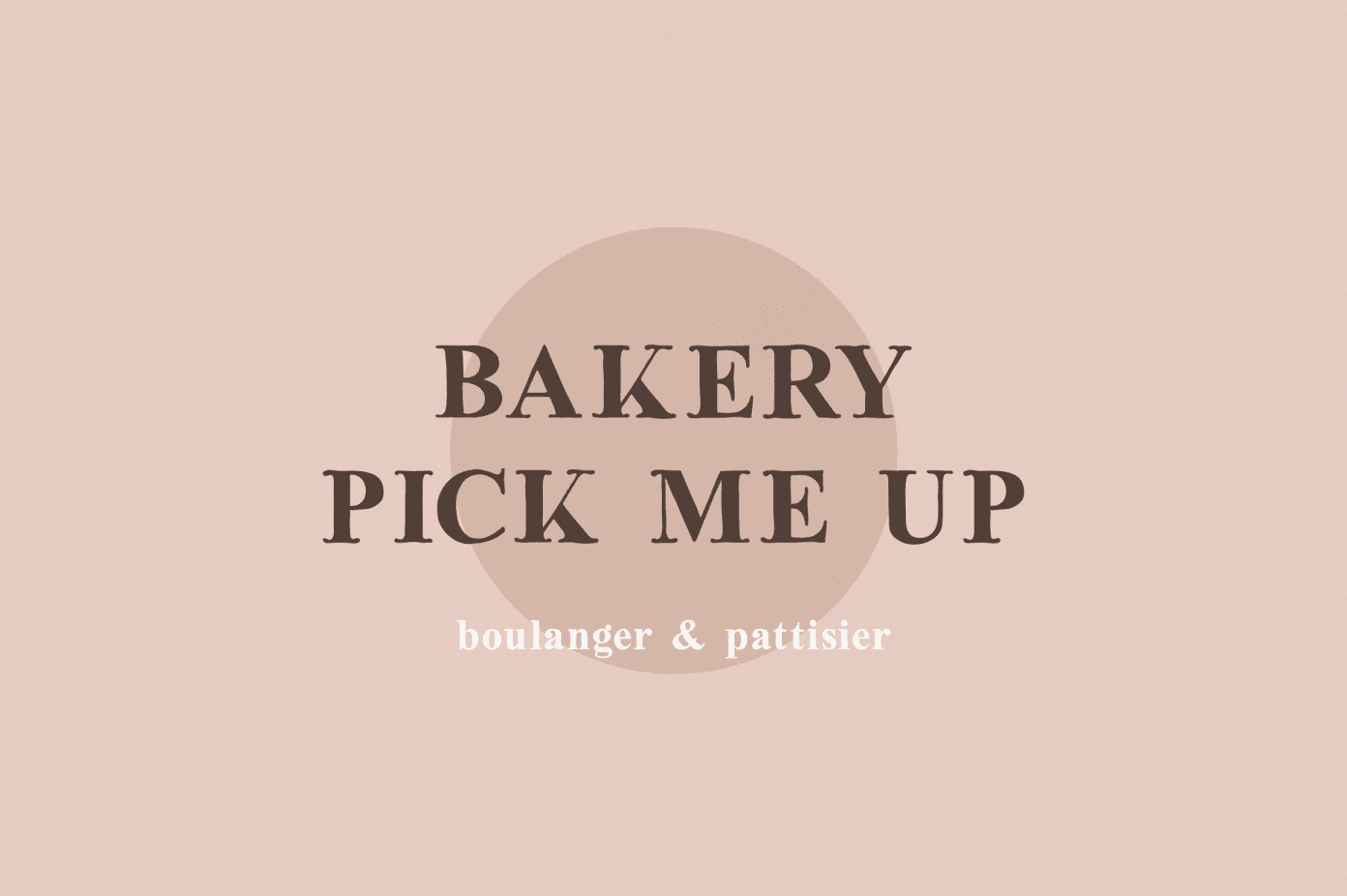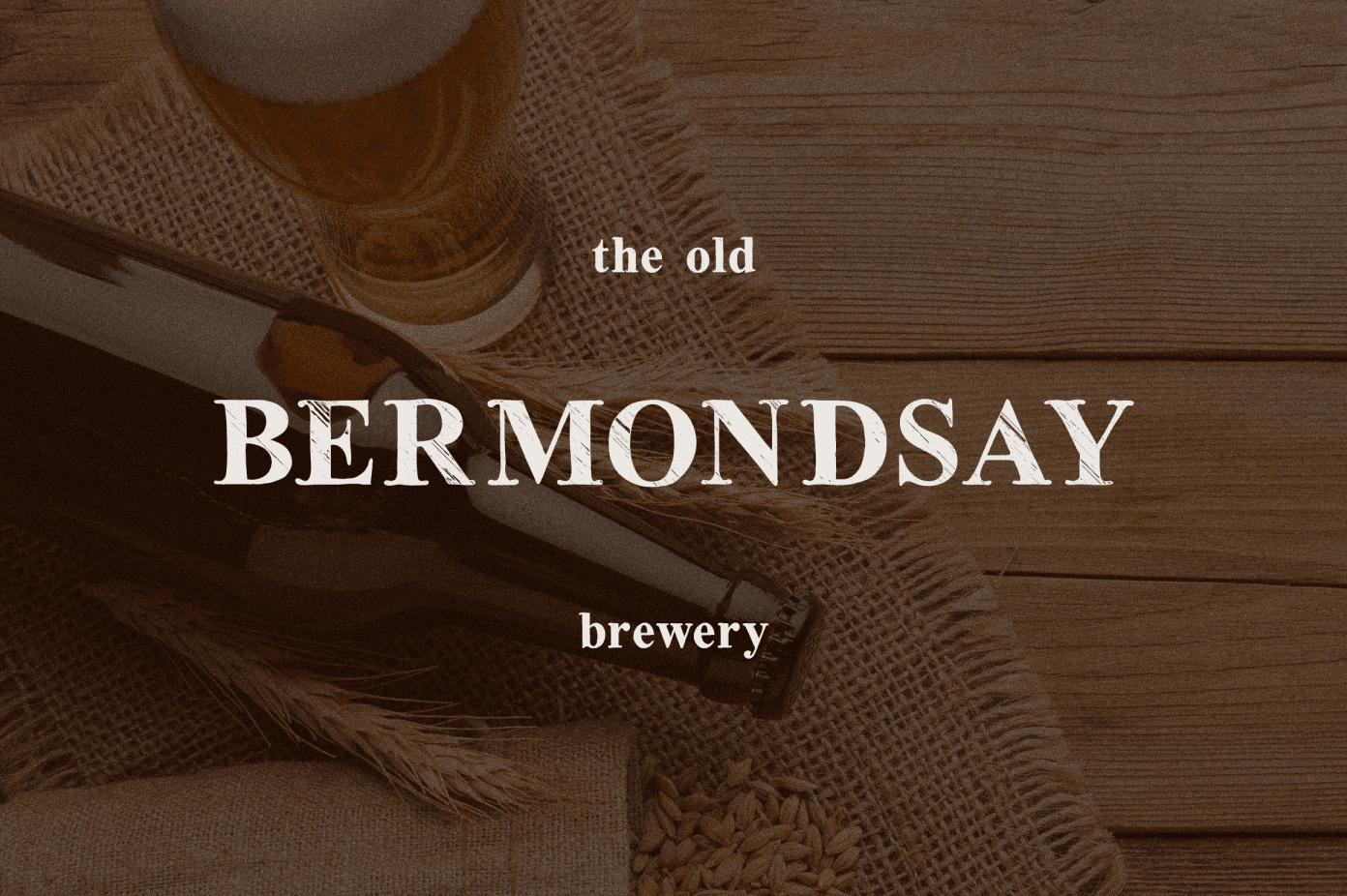
Oldink Font
Very versatile fonts that works great in large and small sizes.Oldink  font is perfect for branding projects, home-ware designs, product packaging, magazine headers – or simply as a stylish text overlay to any background image.